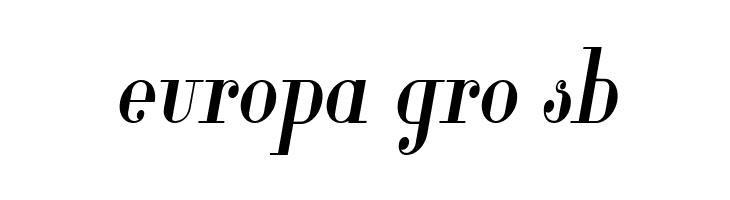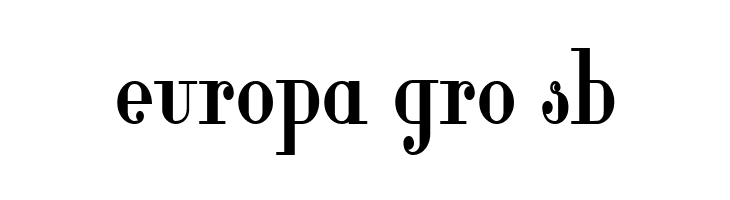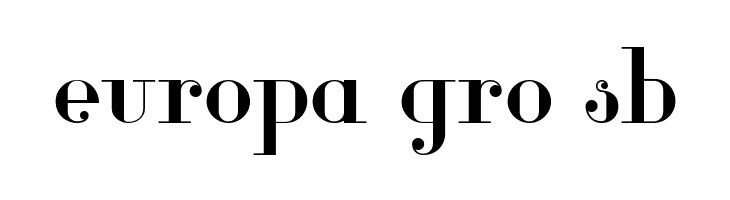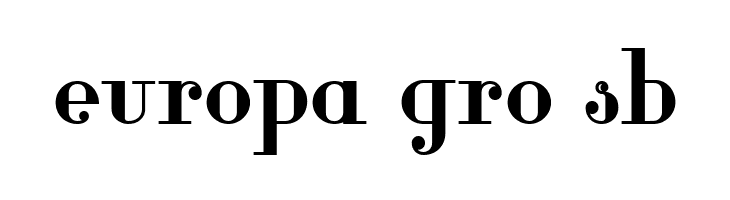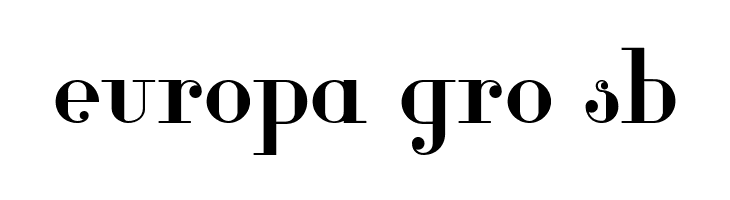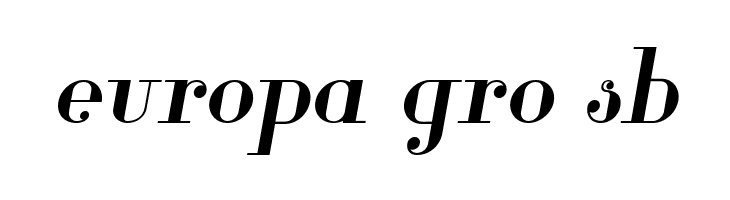
A sophisticated, condensed italic font with elegant serifs and refined style.
A bold, condensed font with high contrast and elegant styling.
A sophisticated serif font with high contrast and elegant flourishes.
A bold, high-contrast serif font with elegant ball terminals and a sophisticated style.
An elegant serif font with high contrast and unique embellishments.
A bold, italic serif font with high contrast and elegant style.
An elegant, high-contrast italic serif font with a modern yet timeless style.
Elegant, light, condensed italic font with high contrast strokes.
A high-contrast, elegant serif font with pronounced serifs and stylish numerals.
An elegant, high-contrast serif font with an italic and extended style.